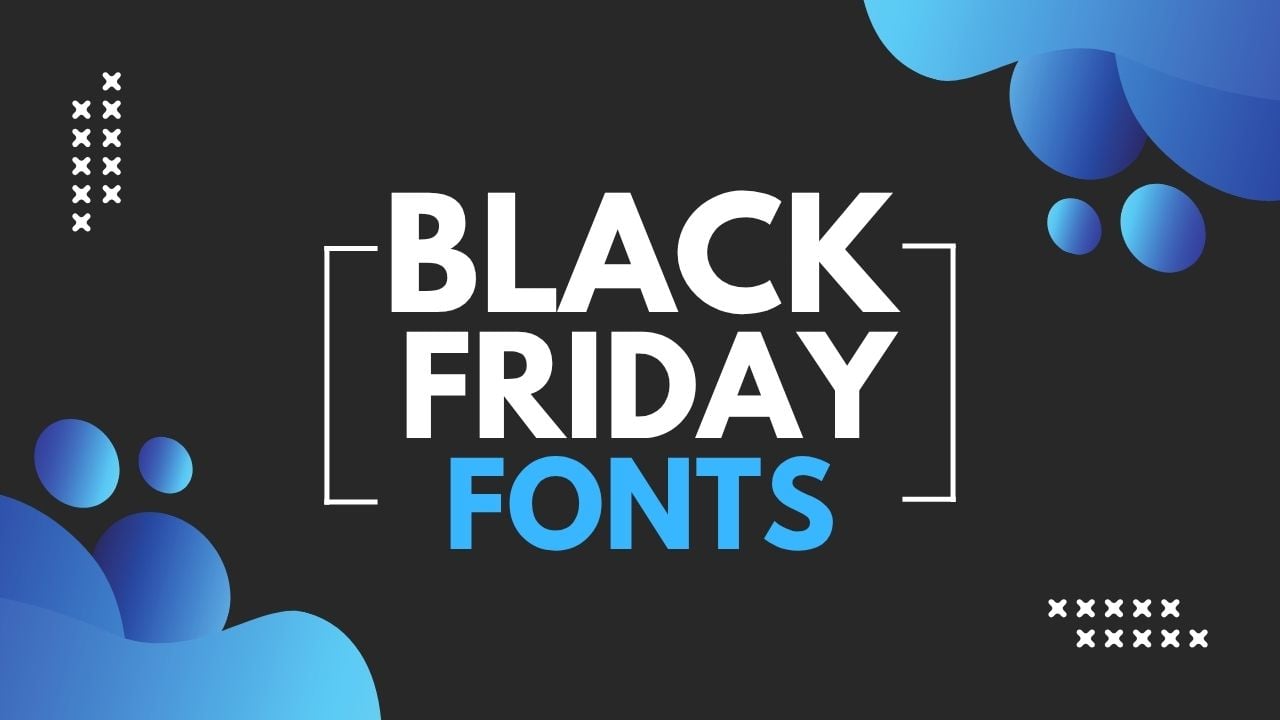
Create Bold Black Friday Typography
Get the ultimate bold fonts collection perfect for Black Friday sales, discounts, and retail promotions. Create eye-catching typography that drives sales!
Black Friday Font Generator creates powerful, attention-grabbing typography perfect for holiday sales, retail promotions, and discount campaigns. Our bold font collection features high-impact typefaces designed specifically for Black Friday marketing, ensuring your sales messages stand out in the competitive holiday shopping season.
Experience the impact of professional Black Friday typography with our specialized font generator. Perfect for creating compelling headlines, promotional banners, and sales announcements that convert browsers into buyers!
Access premium bold fonts specifically designed for sales, discounts, and holiday promotions that demand attention and drive conversions.
Customize your Black Friday text with bold colors, striking effects, and professional styling perfect for retail and e-commerce marketing.
Designed specifically for retail stores, online shops, and e-commerce businesses who need powerful typography for sales campaigns.
Create typography that not only looks great but also drives sales conversions with urgent, compelling messaging and bold visual impact.